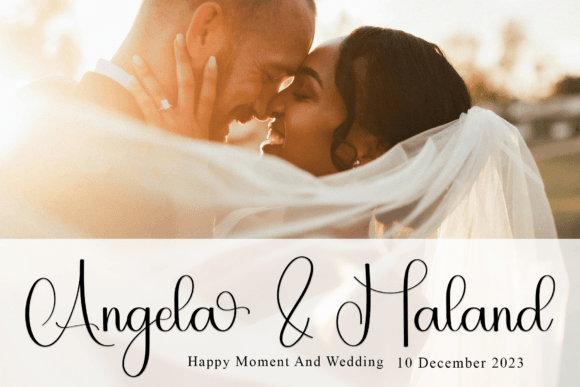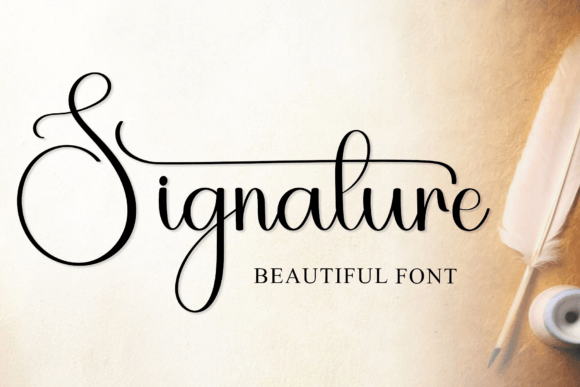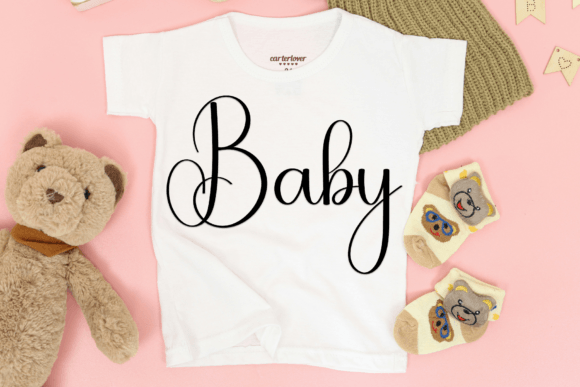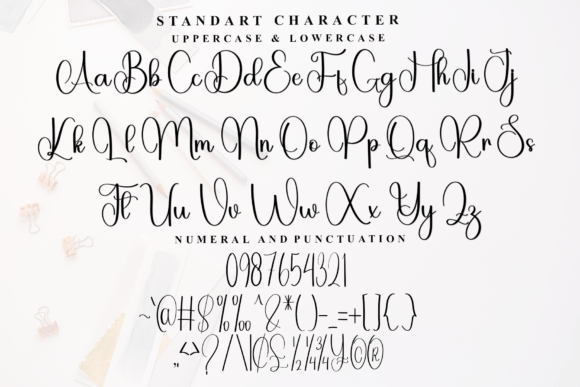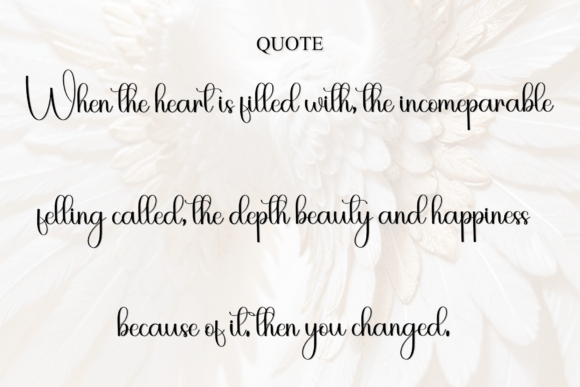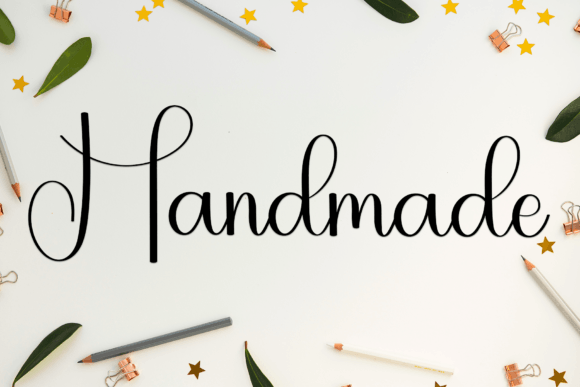
The Magical World of Angela Samanta Font
Have you ever been in the middle of a design project, and suddenly, you’re stuck on finding the perfect font? I recall a recent experience where I was working on a client’s branding project, and I just couldn’t find a script font that captured the elegance and whimsy I was looking for. That’s when I stumbled upon Angela Samanta Font, and let me tell you, it was love at first sight! 💕
A Personal Review of Angela Samanta Font
As a designer, I’m always on the lookout for fonts that can elevate my projects and make them stand out. Here’s my honest review of Angela Samanta Font:
- ✨ Elegant and Magical: Angela Samanta Font has a touch of sophistication and whimsy that makes it perfect for a variety of design projects.
- ✅ PUA Encoded: The font is PUA encoded, which means you can easily access all the amazing glyphs and ligatures.
- 🌈 Versatile: This font is perfect for Instagram posts, calligraphy scripts, DIY projects, and so much more.
- 🤔 Learning Curve: While the font is easy to use, it may take some time to get familiar with all the glyphs and ligatures.
- ⚠️ Limited Use in Certain Contexts: While Angela Samanta Font is amazing for creative projects, it may not be the best choice for body text or formal documents.
Angela Samanta Font is an OpenType font, which means it comes with a range of features and glyphs that can enhance your designs. Here are some tips on how to make the most of these features:
- Stylistic Alternates: Angela Samanta Font comes with stylistic alternates that allow you to switch between different font styles.
- Ligatures: The font includes ligatures that can be used to connect letters and create a more fluid design.
- Glyphs: The font comes with a range of glyphs that can be used to add decorative elements to your designs.
The Designer Inspiration Behind Angela Samanta Font
The story behind Angela Samanta Font is one of passion and creativity. The font was designed by a team of talented designers who wanted to create a font that would inspire creativity and elegance. With its unique blend of script and calligraphy elements, Angela Samanta Font is sure to become a favorite among designers and crafters alike.
- Q: What is Angela Samanta Font?
- A: Angela Samanta Font is a magical script font carefully created with a touch of elegance.
- Q: Is Angela Samanta Font PUA encoded?
- A: Yes, Angela Samanta Font is PUA encoded, which means you can easily access all the amazing glyphs and ligatures.